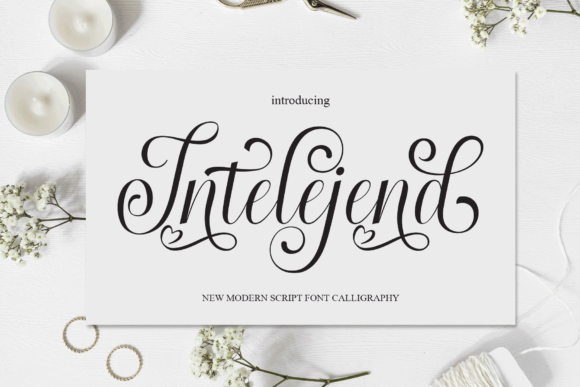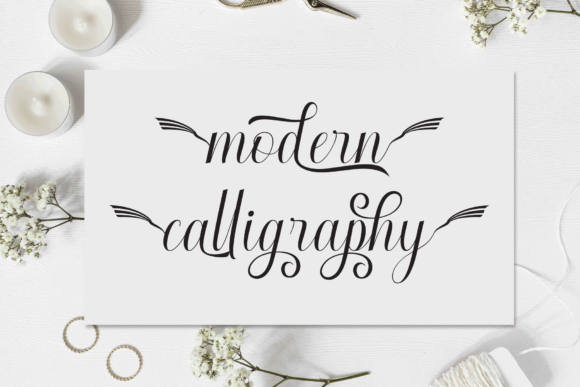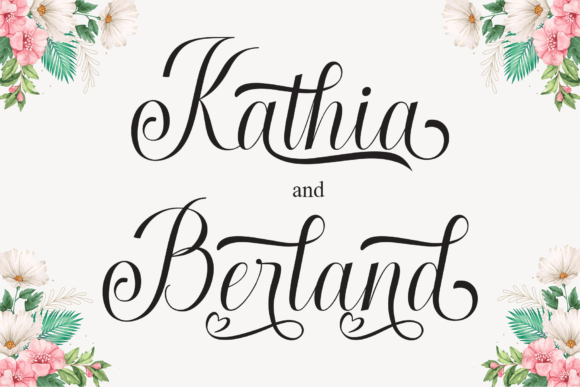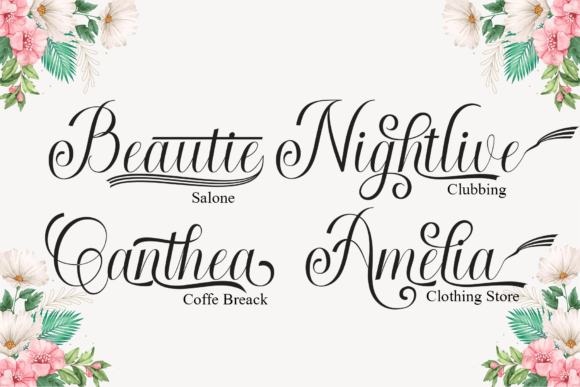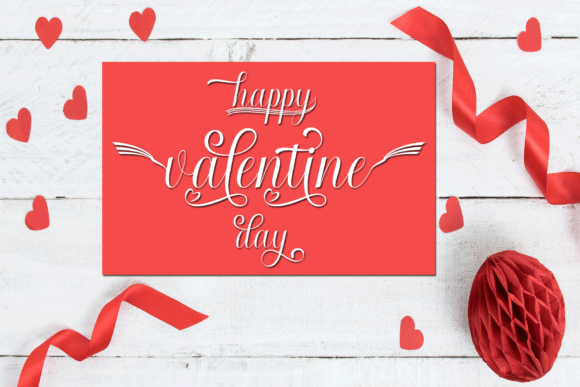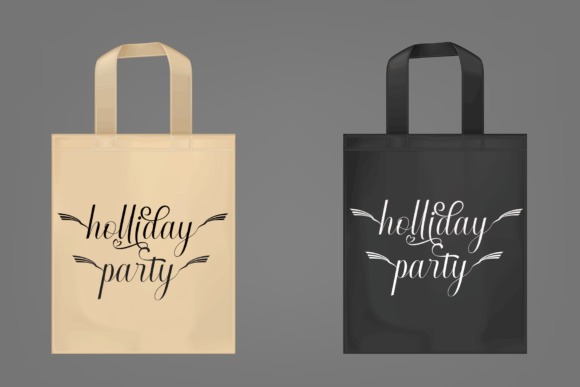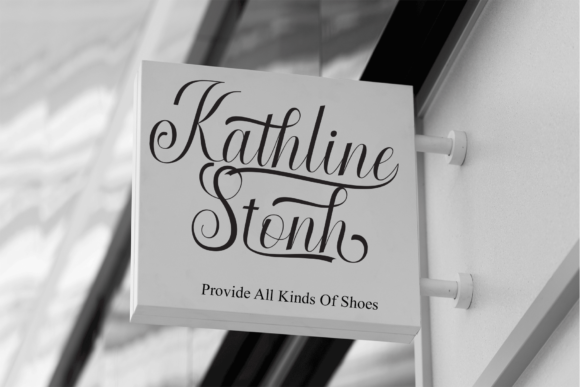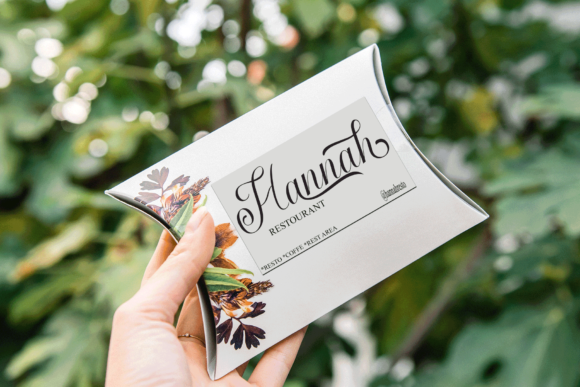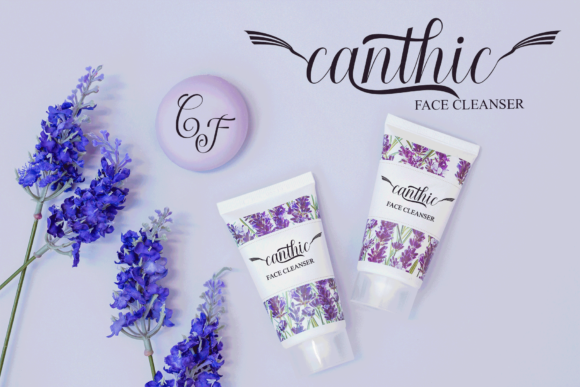
Intelejend Font
About Intelejend Font
Intelejend is a distinct, highly detailed script font. Fall for its ravishing style and use it to create gorgeous designs. This font is PUA encoded which means you can access all glyphs and swashes with ease!